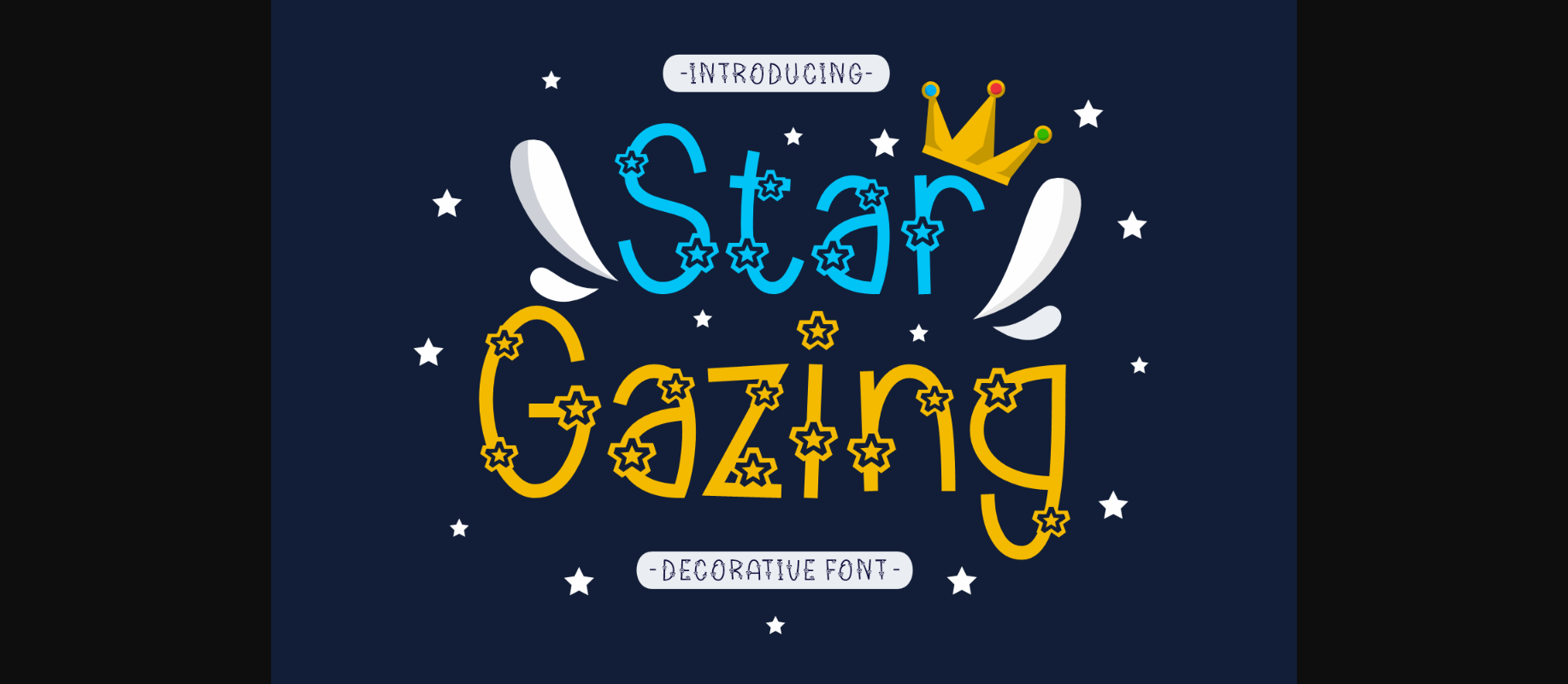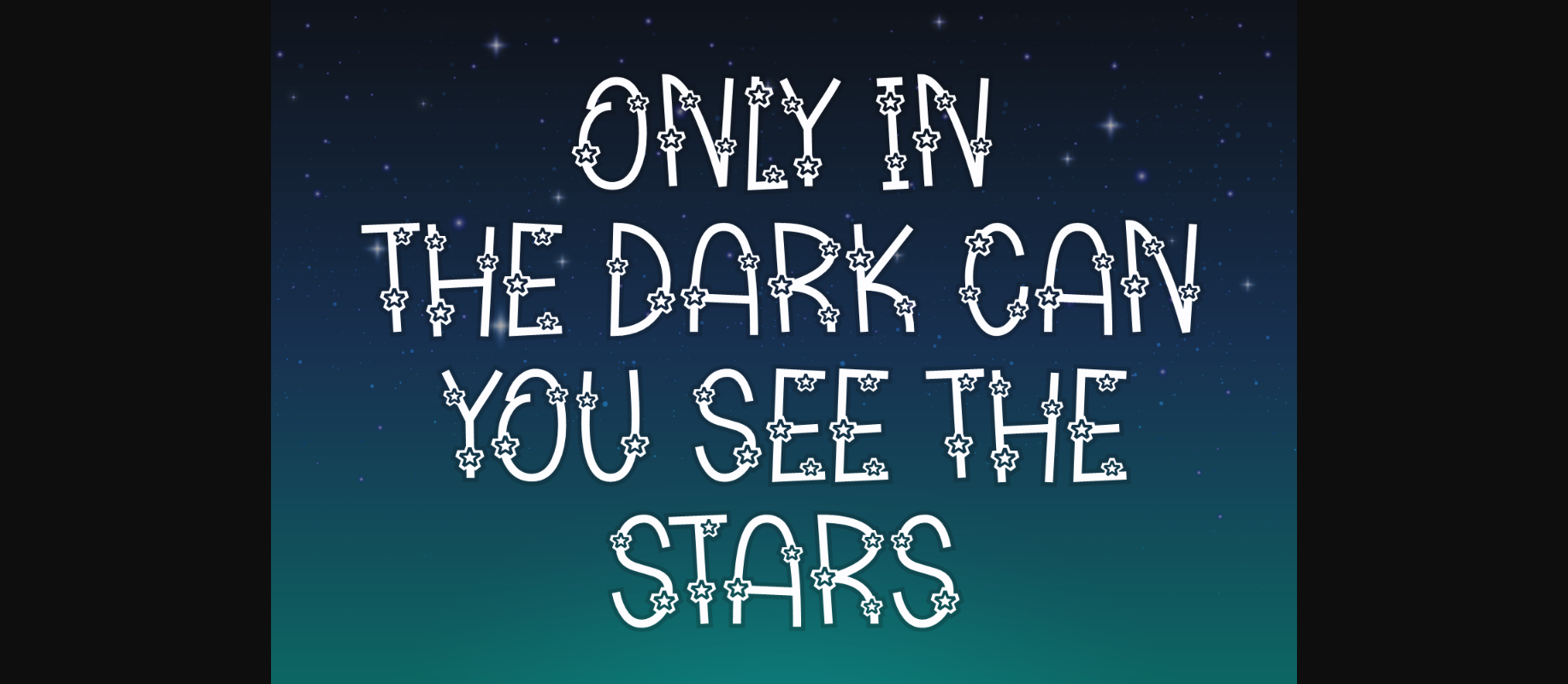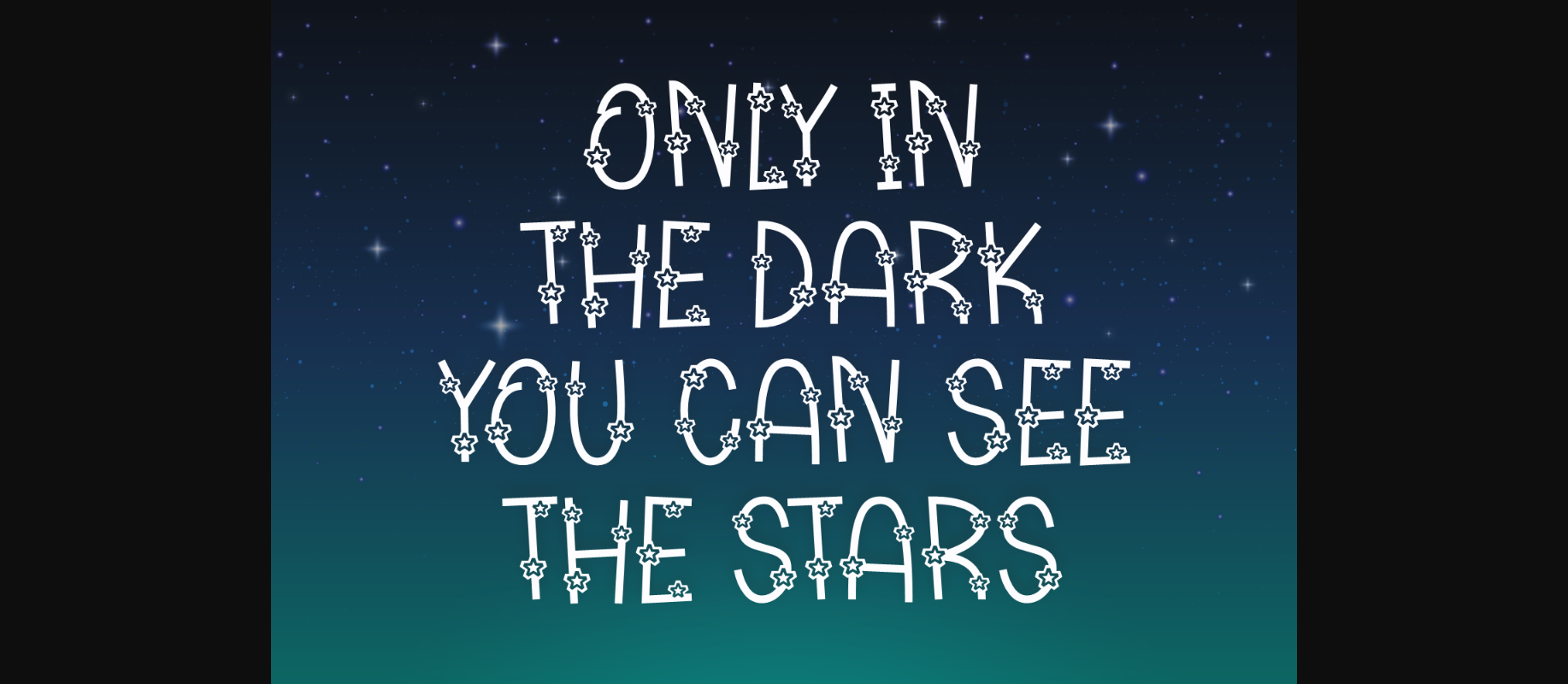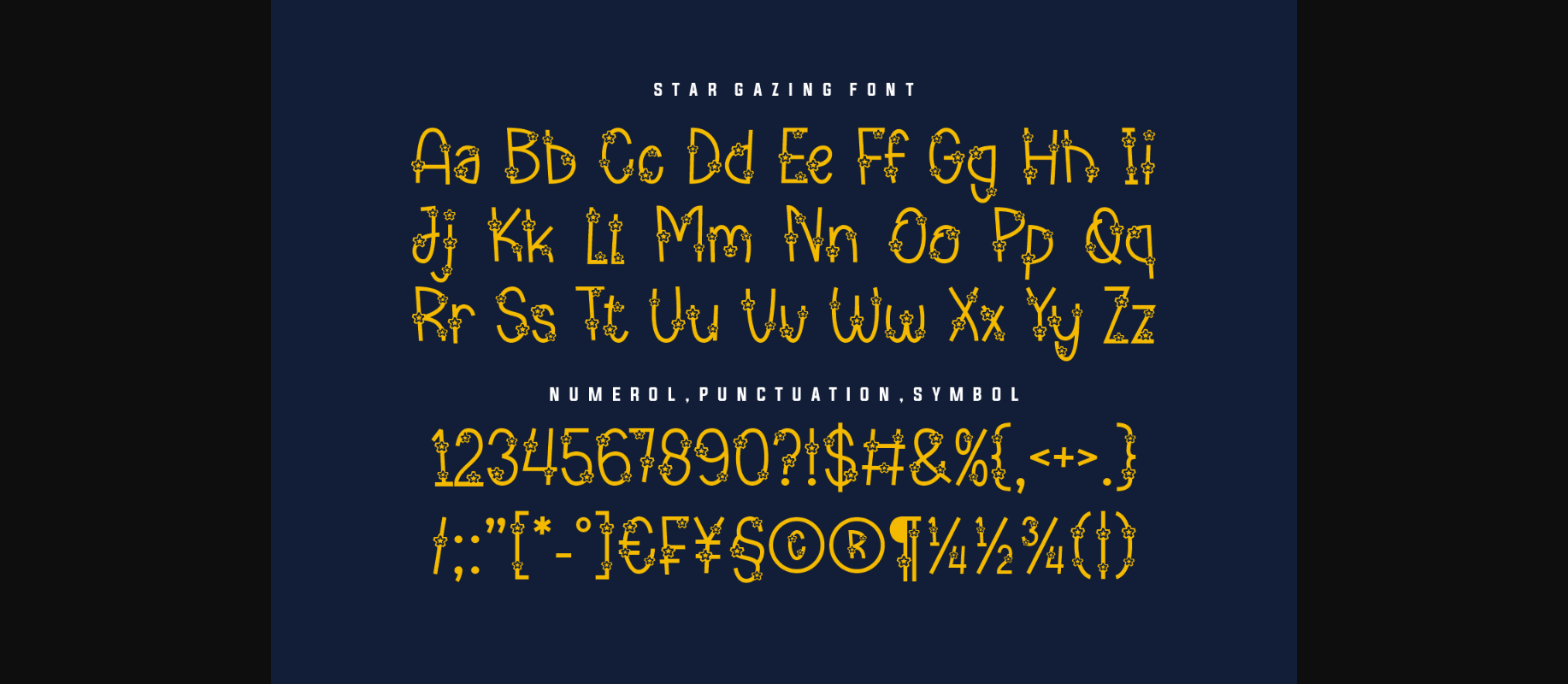
About Star Gazing Font
Star Gazing is a unique and stunning decorative font that is perfect for projects that require a bold and eye-catching design. Its intricate and detailed elements create a sense of drama and impact, while its unique shapes and flourishes add an element of creativity and style. Ideal for branding, packaging, and any project that requires a font that is both unique and stunning.